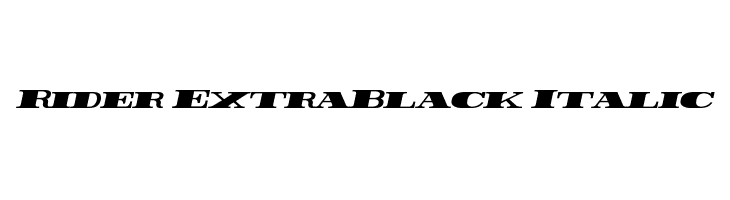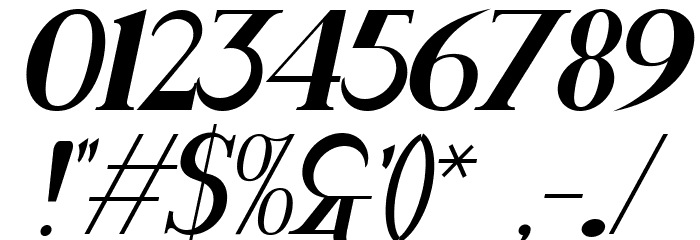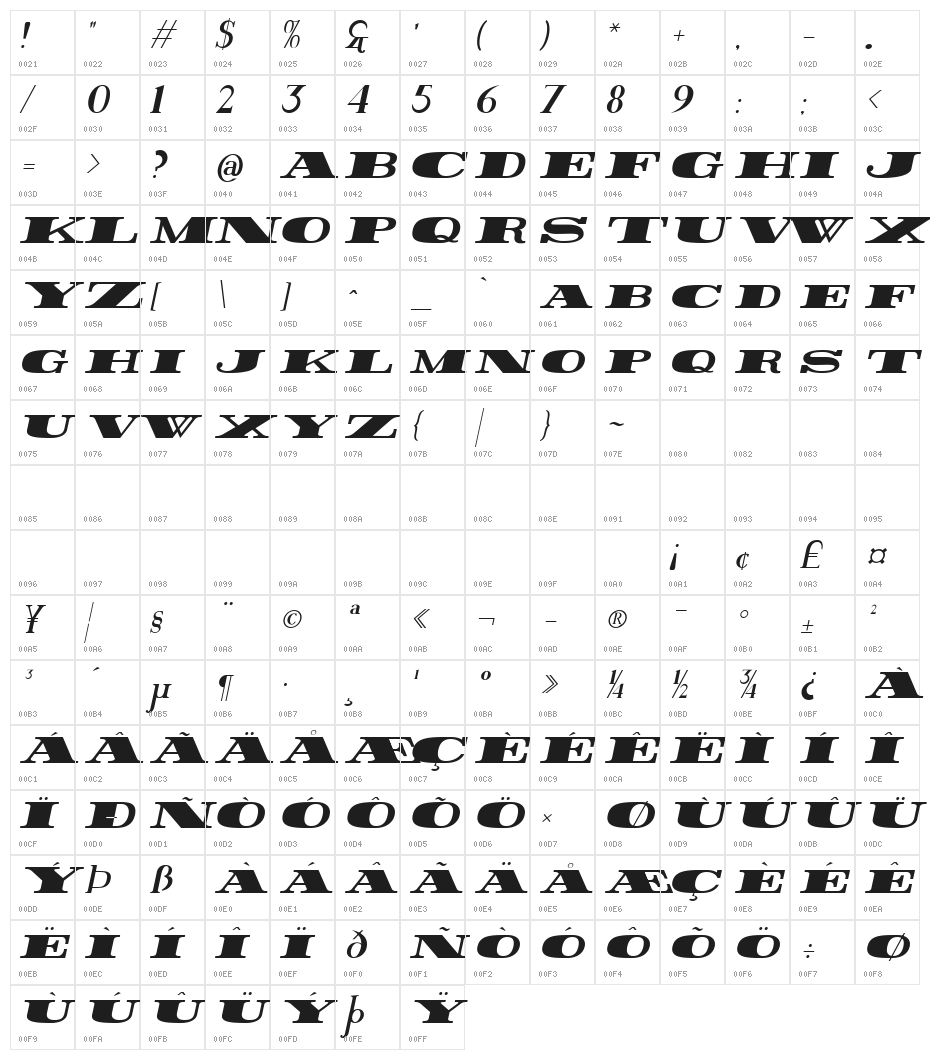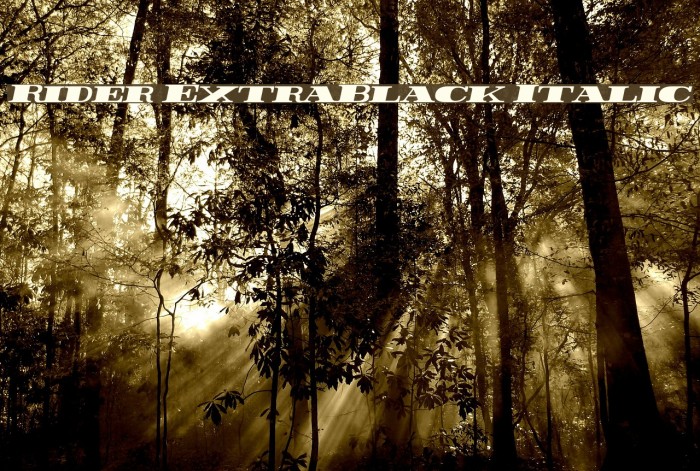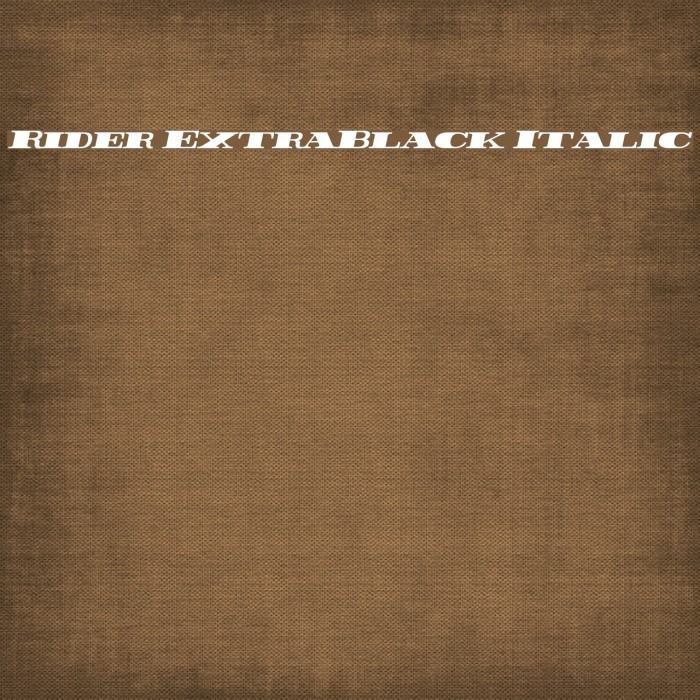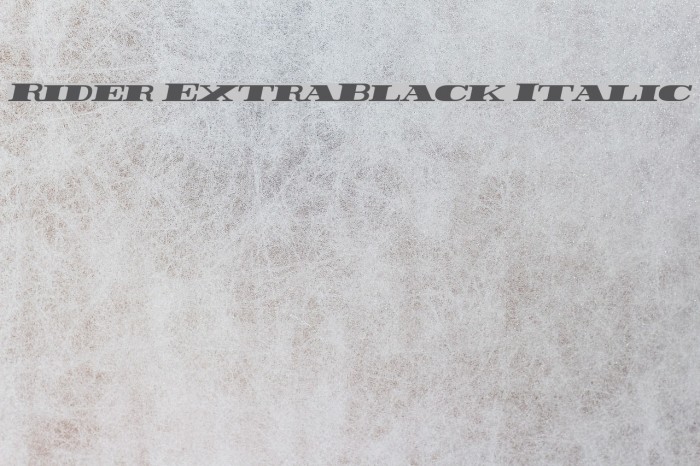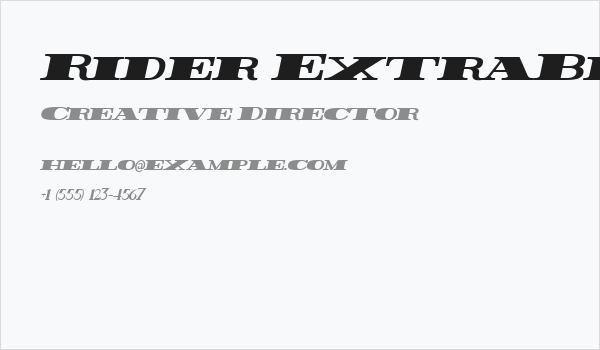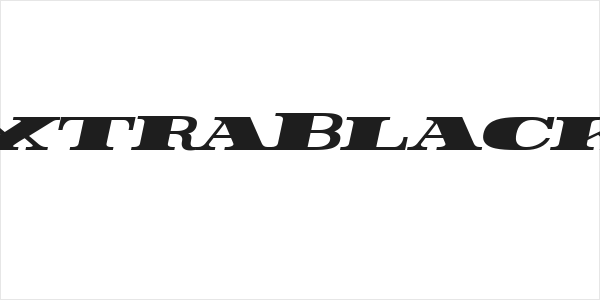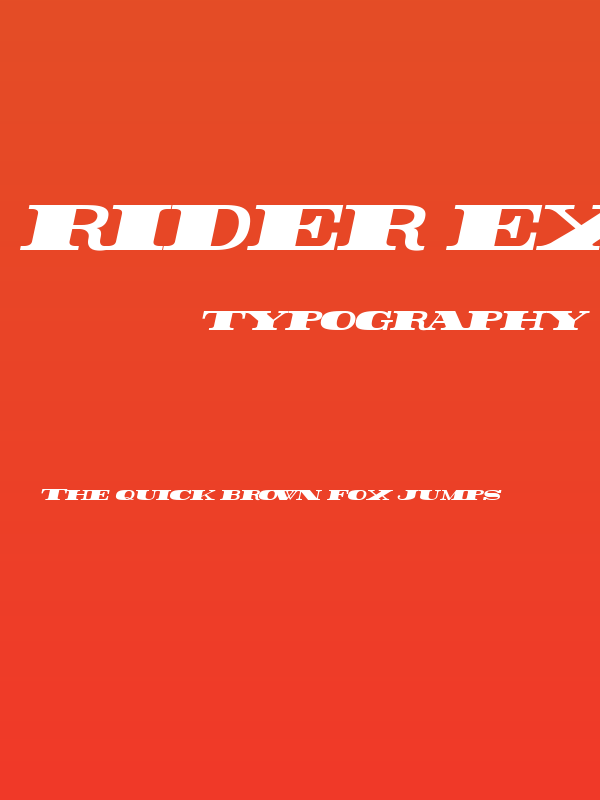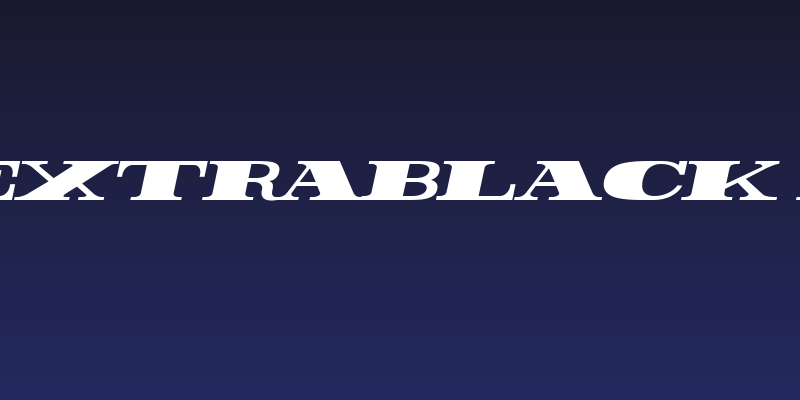
Rider ExtraBlack Italic Font
Rider ExtraBlack Italic Description
This font features a bold and dynamic style with a pronounced italic slant, giving it a sense of motion and energy. The characters are thick and robust, with sharp, angular serifs that add a touch of sophistication. The uppercase letters are particularly striking, with a strong presence that commands attention. The numerals are equally bold, maintaining the font's overall aesthetic. Special characters are designed with the same boldness and flair, making them stand out. This font's unique style makes it suitable for projects that require a strong visual impact.
| Proposed Projects | Ideal for branding, headlines, posters, and any design needing a bold statement. |